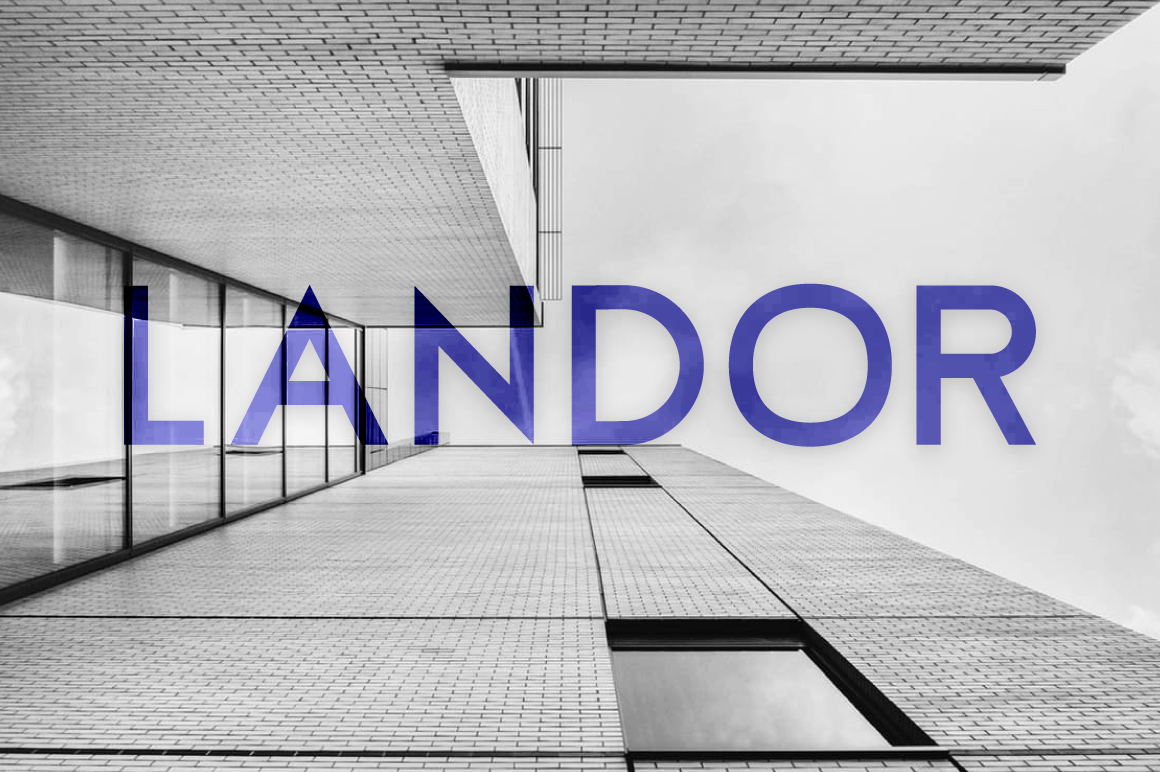
Landor Display Typeface
Landor is a no-nonsense typeface with sharp corners and balanced symmetry designed for large headlines, titles and business logos. It matches smoothly with serifs and sans-serifs to create a high class font pairing for your designs.
- Basic Latin
- Latin-1 supplement
- Cyrillic support
- Alphabets, numerics & punctuations
Suitable for:
- Headlines
- Titles
- Logos
- Posters
- Product packaging